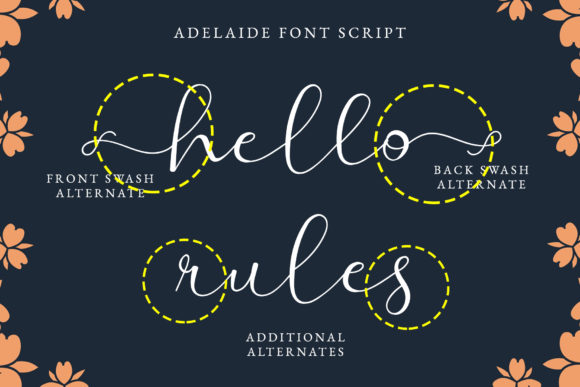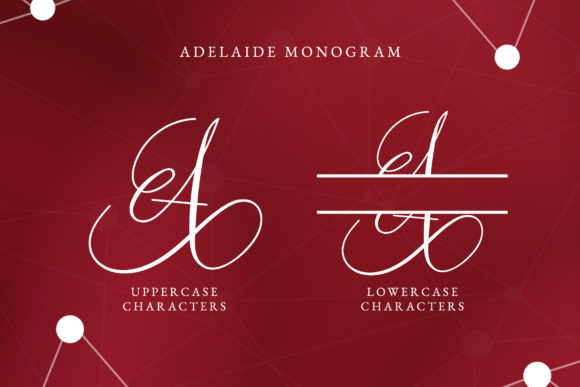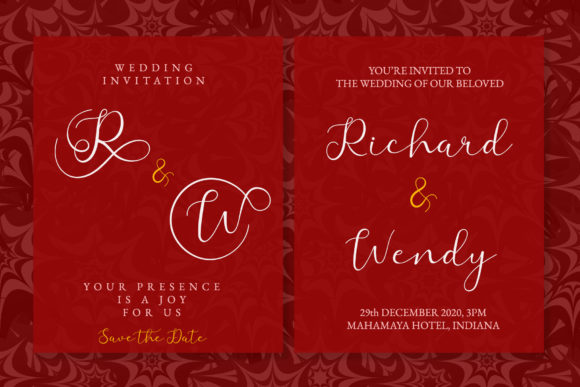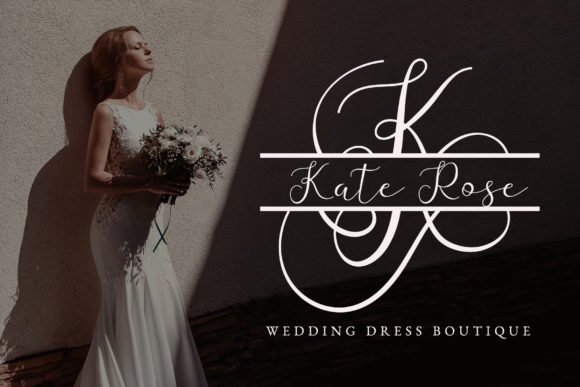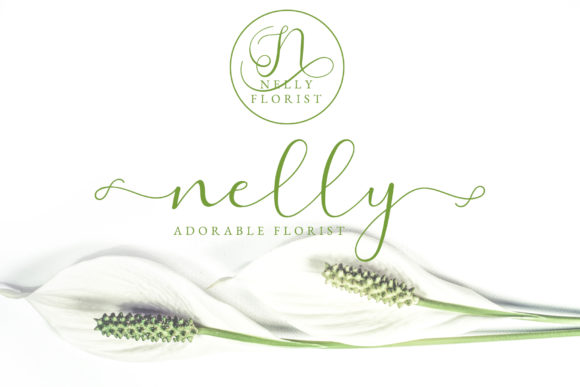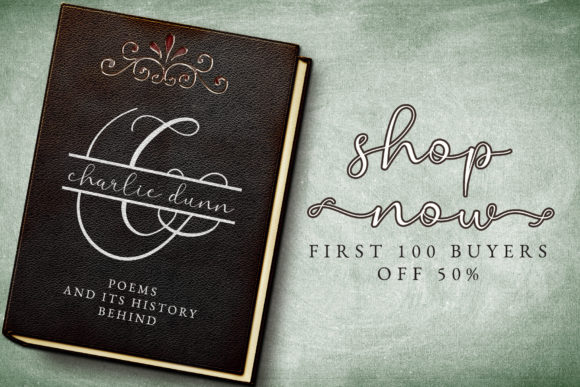
Introducing Adelaide Font: The Perfect Handwritten Script for Your DIY Projects
Are you a designer, crafter, or DIY enthusiast looking for a unique and elegant font to bring your projects to life? Look no further than Adelaide Font, a beautiful handwritten script font that adds a touch of sweetness and sophistication to any design. In this article, we’ll explore the features and benefits of Adelaide Font, and show you how to use it to take your DIY projects to the next level.
What is Adelaide Font?
Adelaide Font is a carefully crafted handwritten script font that exudes elegance and charm. With its flowing curves and delicate strokes, this font is perfect for adding a personal touch to your designs. Whether you’re creating invitations, greeting cards, or social media graphics, Adelaide Font is sure to make your projects stand out.
Key Features of Adelaide Font
- Handwritten script: Adelaide Font is a genuine handwritten script font, giving your designs a personal and authentic feel.
- Sweet and elegant: The font’s delicate strokes and flowing curves add a touch of sweetness and elegance to your designs.
- Unique and distinctive: Adelaide Font is a one-of-a-kind font that will set your designs apart from the crowd.
- Versatile: This font is perfect for a wide range of DIY projects, from invitations and greeting cards to social media graphics and blog posts.
Benefits of Using Adelaide Font
So why choose Adelaide Font for your DIY projects? Here are just a few benefits of using this gorgeous font:
- Adds a personal touch: Adelaide Font’s handwritten script gives your designs a personal and authentic feel that will resonate with your audience.
- Enhances creativity: With its unique and distinctive style, Adelaide Font will inspire you to think outside the box and try new things.
- Perfect for crafty projects: Whether you’re a crafter, scrapbooker, or DIY enthusiast, Adelaide Font is the perfect choice for adding a touch of elegance to your projects.
How to Use Adelaide Font in Your DIY Projects
Using Adelaide Font in your DIY projects is easy! Here are a few tips to get you started:
- Pair with images: Combine Adelaide Font with beautiful images or illustrations to create stunning visual graphics.
- Experiment with colors: Try pairing Adelaide Font with different colors and textures to add depth and interest to your designs.
- Use for titles and headings: Adelaide Font is perfect for titles and headings, adding a touch of elegance and sophistication to your designs.
Tips and Tricks for Working with Adelaide Font
Here are a few more tips and tricks for working with Adelaide Font:
- Adjust font size and style: Experiment with different font sizes and styles to add visual interest to your designs.
- Add embellishments: Use Adelaide Font in combination with embellishments like glitter, ribbons, or buttons to add a touch of whimsy to your designs.
- Use for digital and print projects: Adelaide Font is perfect for both digital and print projects, from social media graphics to invitations and greeting cards.
Adelaide Font is a beautiful handwritten script font that adds a touch of sweetness and elegance to any DIY project. With its unique and distinctive style, this font is perfect for designers, crafters, and DIY enthusiasts looking to bring a personal touch to their designs. Whether you’re creating invitations, greeting cards, or social media graphics, Adelaide Font is sure to make your projects stand out. So why wait? Download Adelaide Font today and start bringing your DIY projects to life!